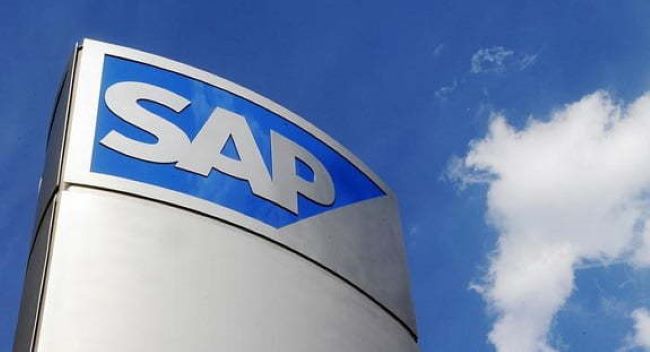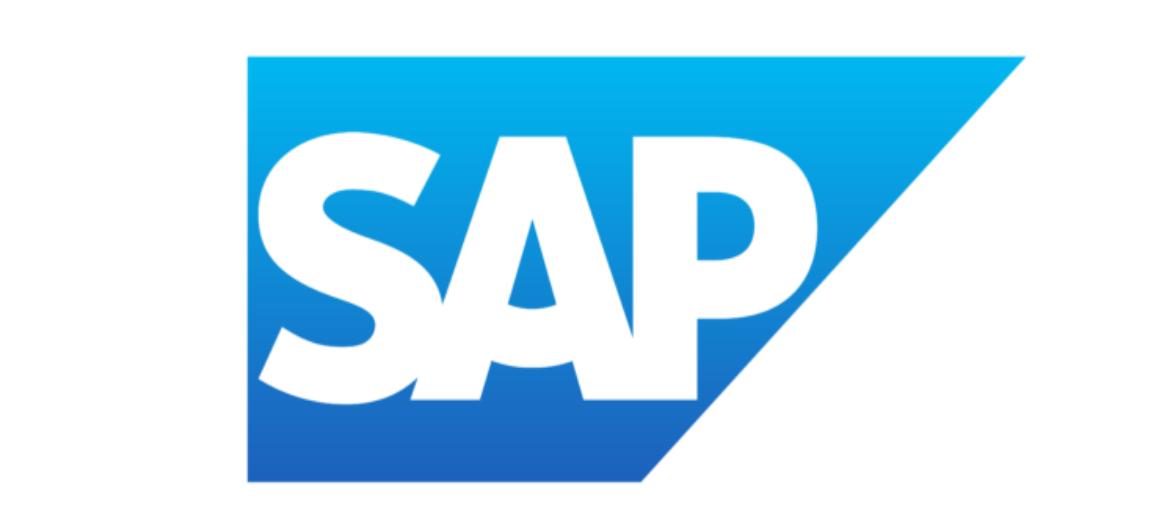
SAP Font
SAP Font has always stood out because of how professional and straightforward it looks. Every time you see the company’s branding, it’s clear how much the SAP logo font contributes to its reputation as a trusted leader in enterprise software. The typeface reflects clarity, stability, and innovation—all qualities that SAP is known for. The SAP logo font is based on Frutiger, a clean and modern sans-serif typeface. This choice emphasizes readability and precision, which mirrors the brand’s focus on simplifying complex business processes, working consistently across digital platforms, corporate materials, and product interfaces.
Compared to other tech companies, SAP Font feels more structured and business-focused. That’s why it connects so strongly with corporate audiences. SAP Font proves that typography can communicate reliability and expertise, making the SAP logo font an integral part of the brand’s global presence.